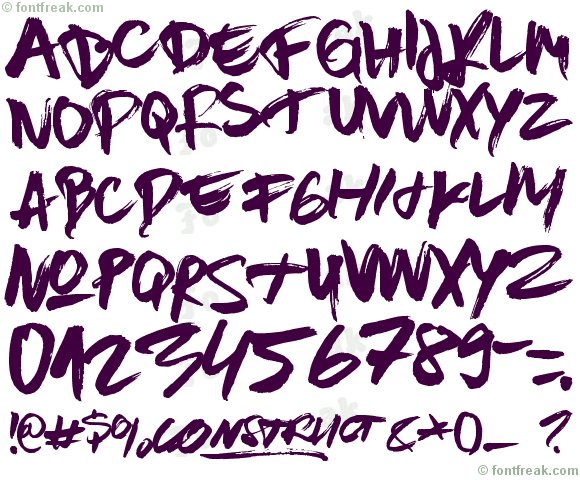
Brown Fox
About Brown Fox
The Brown Fox font, designed by Leonard Posavec, is a striking display typeface that embodies a unique blend of artistic flair and boldness. As a decorative font, it features a distinct style characterized by its thick, expressive strokes and a slightly irregular baseline, which adds a sense of dynamism and creativity to any design. The overall visual appeal of Brown Fox is rooted in its high contrast between thick and thin lines, making it visually engaging while still remaining legible.
Brown Fox is perfect for a variety of creative projects. Its playful aesthetics make it an excellent choice for wedding invitations, where it can convey a sense of elegance and joy. Additionally, this font shines on movie posters, capturing attention with its dramatic flair and artistic expression. Restaurant menus can also benefit from Brown Fox, providing a trendy and modern vibe that attracts diners. Moreover, it is well-suited for branding materials, particularly for businesses looking to stand out in a competitive market.
The target audience for the Brown Fox font includes graphic designers, small business owners, and content creators who are seeking an eye-catching typeface to enhance their projects. Whether used in digital or print mediums, this font is versatile enough to adapt to various design needs.
What sets Brown Fox apart is its ability to convey personality and creativity effortlessly. Its unique style not only enhances visual communication but also resonates with audiences, making it a memorable choice. For those looking to elevate their designs, the Brown Fox font free download offers an excellent opportunity to incorporate this distinctive typeface into their creative toolkit.